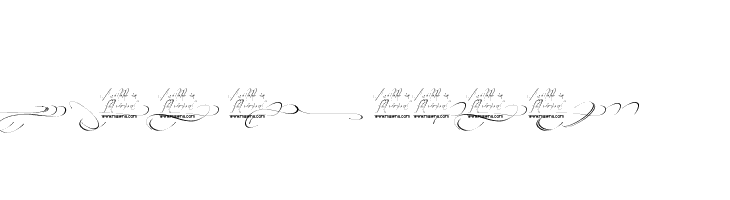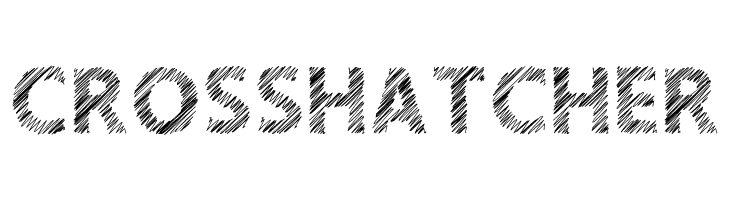
A hollow, geometric font with a futuristic and playful style.
An elegant script font with flowing, cursive letters and a classic appearance.
Bold, rounded handwritten font with a playful and casual style.
A graceful and elegant script font with flowing, connected strokes.
A bold, futuristic font with a halftone effect and high contrast strokes.
An elegant script font with flowing, ornate cursive characters.
A geometric, pixelated font with a digital and futuristic style.
An elegant script font with flowing loops and high contrast strokes.
A bold, condensed font with strong vertical emphasis and minimal spacing.
A delicate and flowing script font with elegant, cursive letterforms.
A bold, expressive handwritten font with playful uppercase letters.
Bold, rounded, spooky display font with playful character shapes.
A bold, vintage-style font with dynamic stroke contrast and strong visual impact.
A playful and quirky font with bold, irregular letterforms.
A modern, geometric font with a futuristic and technical design.
A sleek, modern italic font with elongated characters and a dynamic style.
A flowing, cursive font with a handwritten style and elegant loops.
A modern, geometric font with tall, narrow characters and uniform strokes.
A bold, italic font with a dynamic slant and modern appeal.
A bold, vintage-style font with a rugged, distressed texture.
A bold, bone-themed decorative display font with a spooky vibe.
A bold, gothic blackletter font with witch hat decorations.
A bold, condensed, and italicized font with a dynamic and modern style.
A dynamic brush script font with expressive, hand-painted style.
A bold, brushstroke font with sharp, jagged edges and an energetic style.
Bold, angular display font with bat motifs for a spooky effect.
A bold, geometric font with hollow interiors and a modern, digital aesthetic.
A bold, geometric font with a modern and clean design.
A casual, handwritten font with fluid, marker-like strokes.
A futuristic, geometric font with bold lines and unique negative space usage.
A bold, italicized font with a futuristic, angular design.
A bold, brush-style font with dynamic strokes and a handcrafted feel.
A bold, jagged font with a rough, energetic style.
A sleek, modern italic font with medium weight and dynamic style.
设计师偏爱 pandaman-Hollow, seriousSally_Trial, Snow Holiday, RixilineScript and Captain Canaveral Halftone,因为其造型干净、适用范围广—— 从品牌识别到落地页、海报都能胜任。